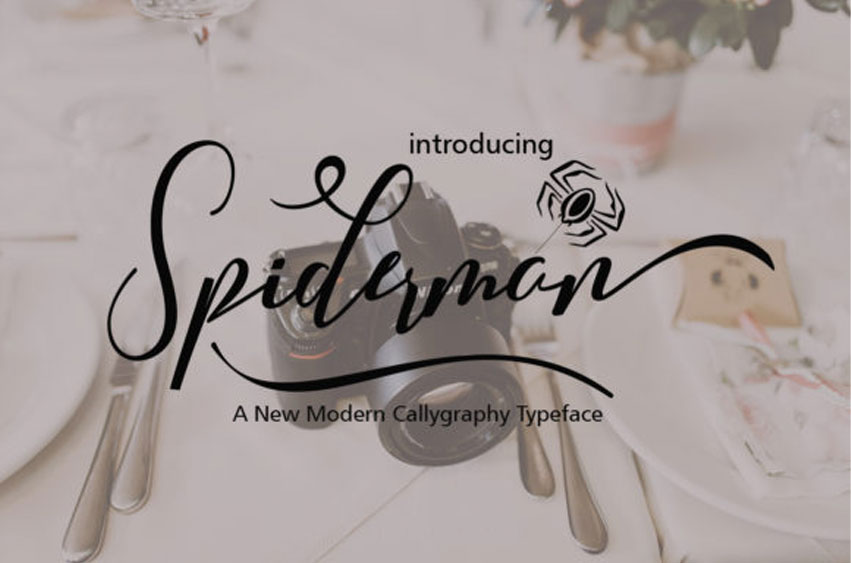
Spiderman Calligraphy Font
Spiderman Calligraphy Font Inspired by classic calligraphy.
Spiderman is a beautiful and unique font with an undeniably elegant feel.